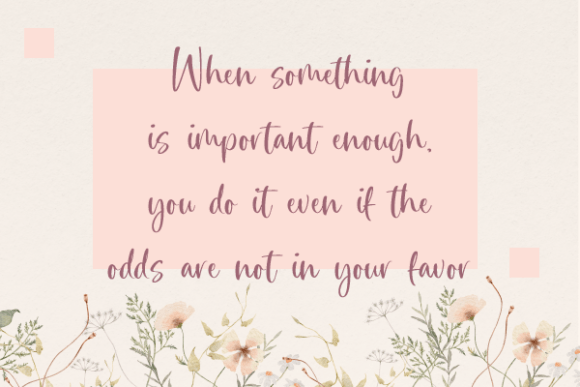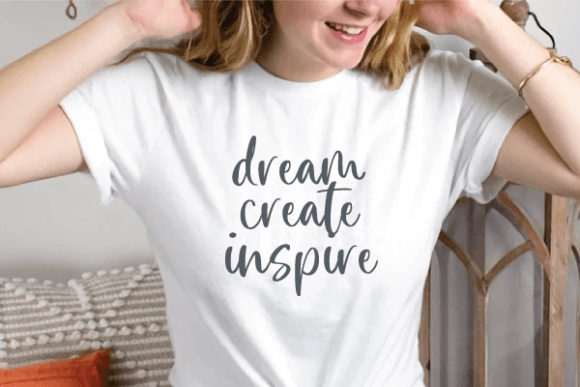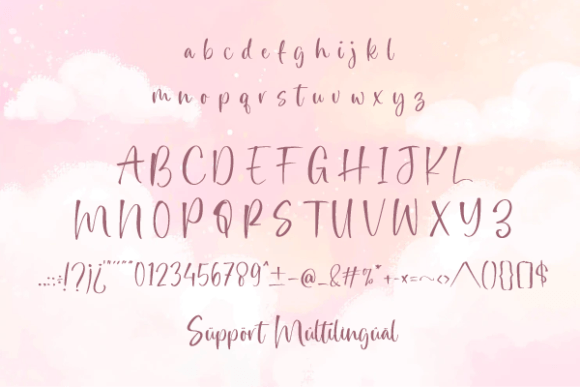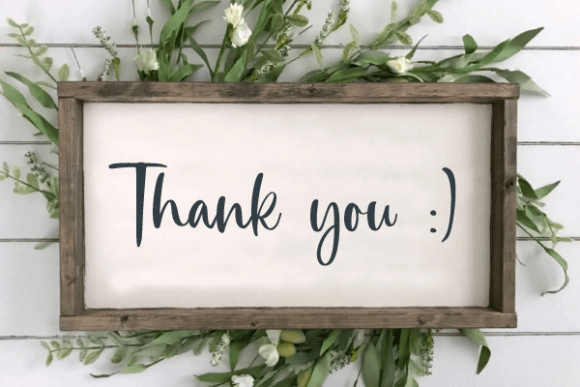
Get Ready to Fall in Love with the Hello Valentine Font
As a designer, have you ever been in the middle of a creative project, staring blankly at your computer screen, and suddenly, inspiration strikes? Maybe it’s the perfect color palette, a clever typography combination, or in this case, the swoon-worthy Hello Valentine Font. This beautiful script font has captured the hearts of many designers, and for good reason.
Designed to evoke a sense of warmth and romance, the Hello Valentine Font is perfect for any project that requires a touch of handwritten charm. From wedding invitations to social media post logos, this font is a versatile addition to any designer’s toolkit. Its elegant, flowing lines make it an ideal choice for designers looking to add a personal touch to their work.
Hello Valentine Font Key Features
- Font Family: Hello Valentine, a beautiful and elegant script font designed for various romantic and festive occasions.
- Size: The font includes a range of sizes, from 12pt to 72pt, providing flexibility for various design applications.
- Resolution: Supports high-resolution printing, making it ideal for printing invitations, cards, and other materials.
- Unique Characteristics: The font features intricate details, swashes, and flourishes, adding a touch of elegance and sophistication to any design.
Designer Review: Hello Valentine Font
Hello Valentine Font is a lovely, elegant script font designed specifically for Valentine’s Day and other romantic occasions. ✨ The font features beautiful, flowing connections between letters and a soft, feminine touch that’s perfect for weddings, valentines, and other love-themed projects. The font’s subtle imperfections and quirks add to its charm, giving it a unique and handmade feel.
- ✨ Elegant and feminine design perfect for romantic occasions
- ✨ Beautiful flowing connections between letters
- ✨ Soft and delicate feel
- ✨ Unique and handmade feel thanks to subtle imperfections
- ⚠️ Limited to use in romantic and feminine contexts
- ⚠️ May not be suitable for projects requiring a more modern or edgy feel
- ⚠️ Limited font sizes and styles available
Overall, I think Hello Valentine Font is a lovely addition to any designer’s toolkit. While it may have some limitations, its unique charm and elegance make it a great choice for romantic projects. I’d highly recommend it for anyone looking for a soft, feminine font with a handmade feel.
Use “Hello Valentine Font” for:
- Valentine’s Day cards and invitations.
- Wedding invitations and decorations.
- Gift tags and labels.
- Any design project requiring a playful, handwritten font.
For optimal results, use the font at a size between 12-24 points, and pair it with a contrasting background color.